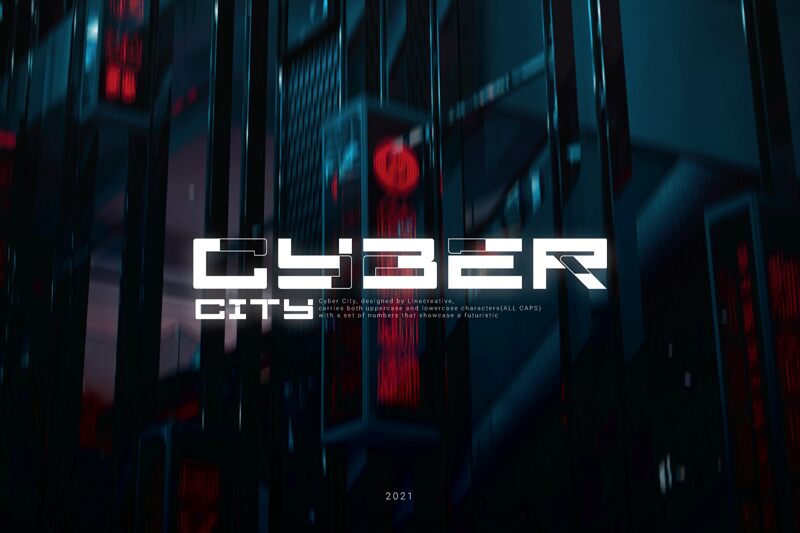
CyberCity-Regular
Introducing Cyber City, the display font designed by Ari Juanda. Its futuristic style is perfect for creating bold, impactful designs. With its wide width, Cyber City can be used to create plenty of imaginative projects like movie posters, album covers or logo designs. It's also ideal for tech related designs, making it the perfect choice for modern businesses.